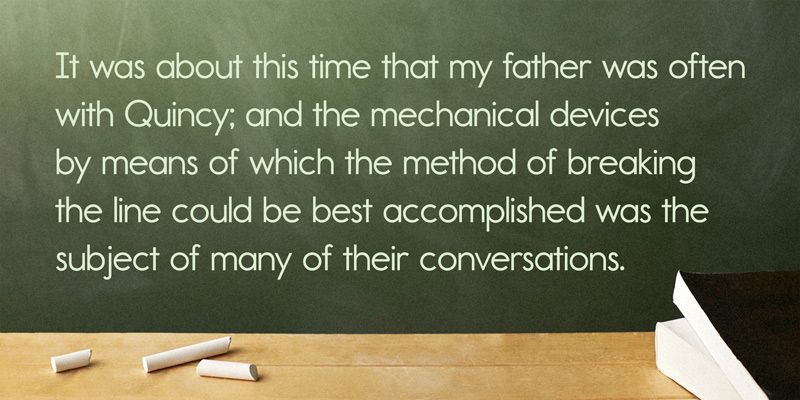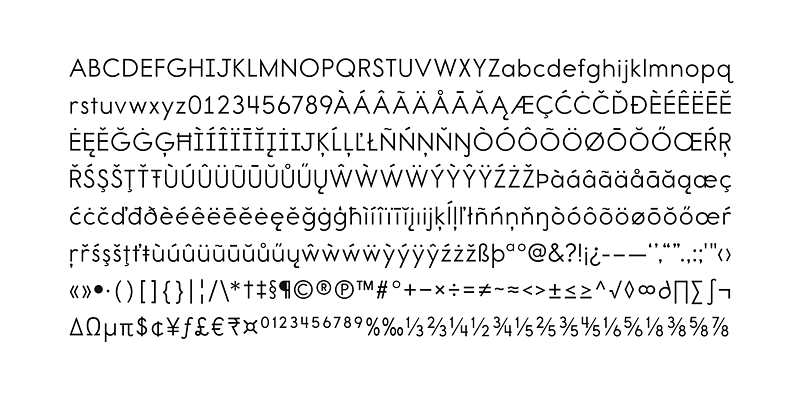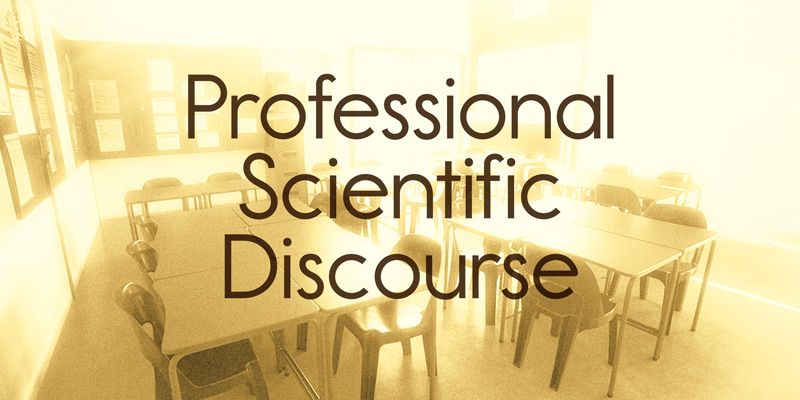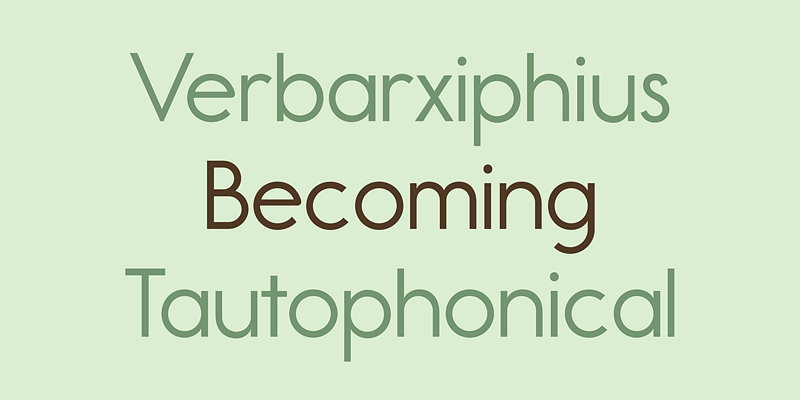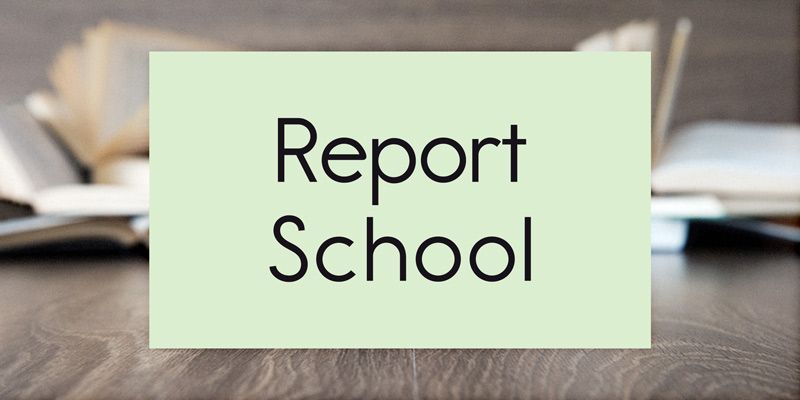
Report School is a geometric sans with the approachable spirit of school handwriting worksheets. Its forms are orderly, but they do not force every curve into a rigid diagram; the letters stay easy to recognize when a page mixes instructions, questions, and examples. Squared details give it a little structure without losing its classroom warmth. It belongs naturally on workbook headings, activity sheets, educational posters, and short passages that should feel welcoming to students. A museum activity or digital lesson can borrow the same familiar learning voice.